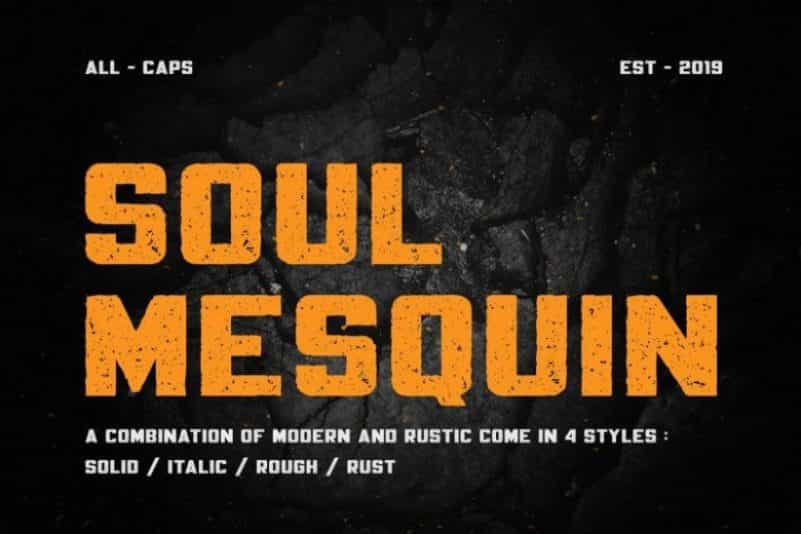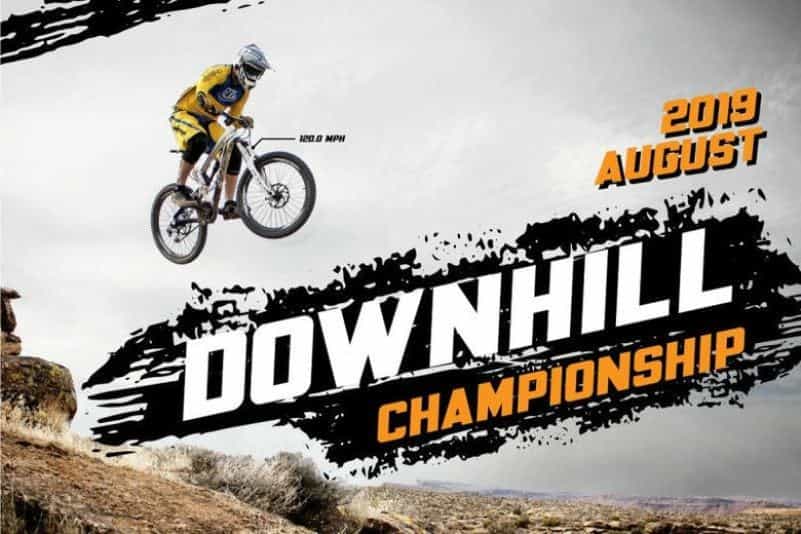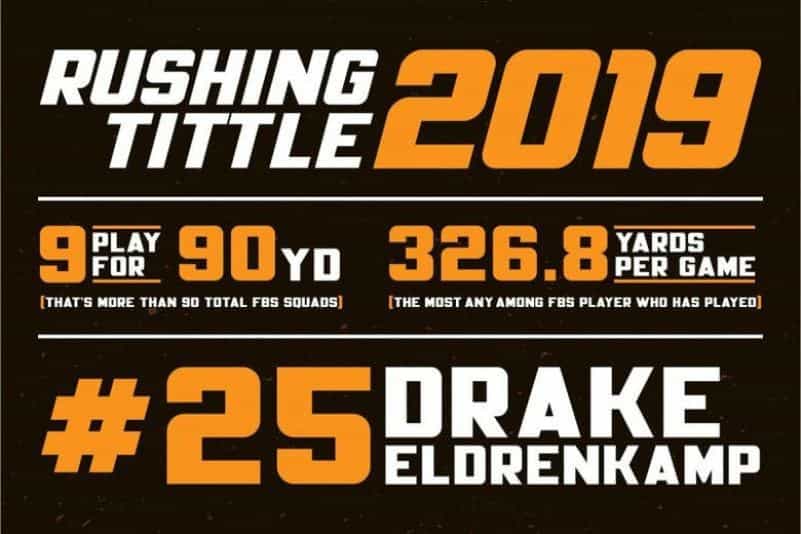
Hello typesetters! Today’s font offering is Mesquin, a blend of rustic and modern written with conspicuous style and clean avant garde ideas. A geometrically designed all-capital sans-serif font, Mesquin will certainly become a typographical highlight in every aspect.